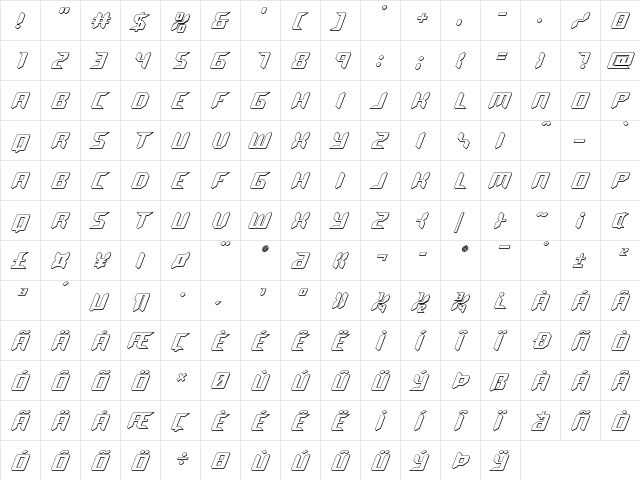
Robo-Clone Outline
Design Context for Robo-Clone Outline Typeface
Robo-Clone Outline is built around its visual character rather than neutral utility — its distinctive forms are designed to make an impression at display sizes.
Font Pairing: Pair with a clean neutral sans-serif for body copy to let Robo-Clone Outline's character lead without overwhelming the composition.
Pro Tip: Use Robo-Clone Outline exclusively at display sizes — it was designed to be seen, not read at length. Let a neutral companion handle body copy.